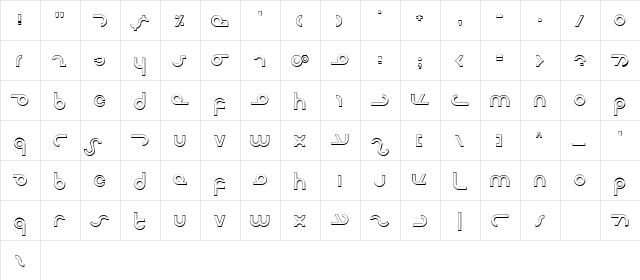
Masterdom Shadow Shadow
Design Context for Masterdom Shadow Typeface
Masterdom Shadow is built around its visual character rather than neutral utility — its distinctive forms are designed to make an impression at display sizes.
Font Pairing: Pair with a clean neutral sans-serif for body copy to let Masterdom Shadow's character lead without overwhelming the composition.
Pro Tip: Use Masterdom Shadow exclusively at display sizes — it was designed to be seen, not read at length. Let a neutral companion handle body copy.